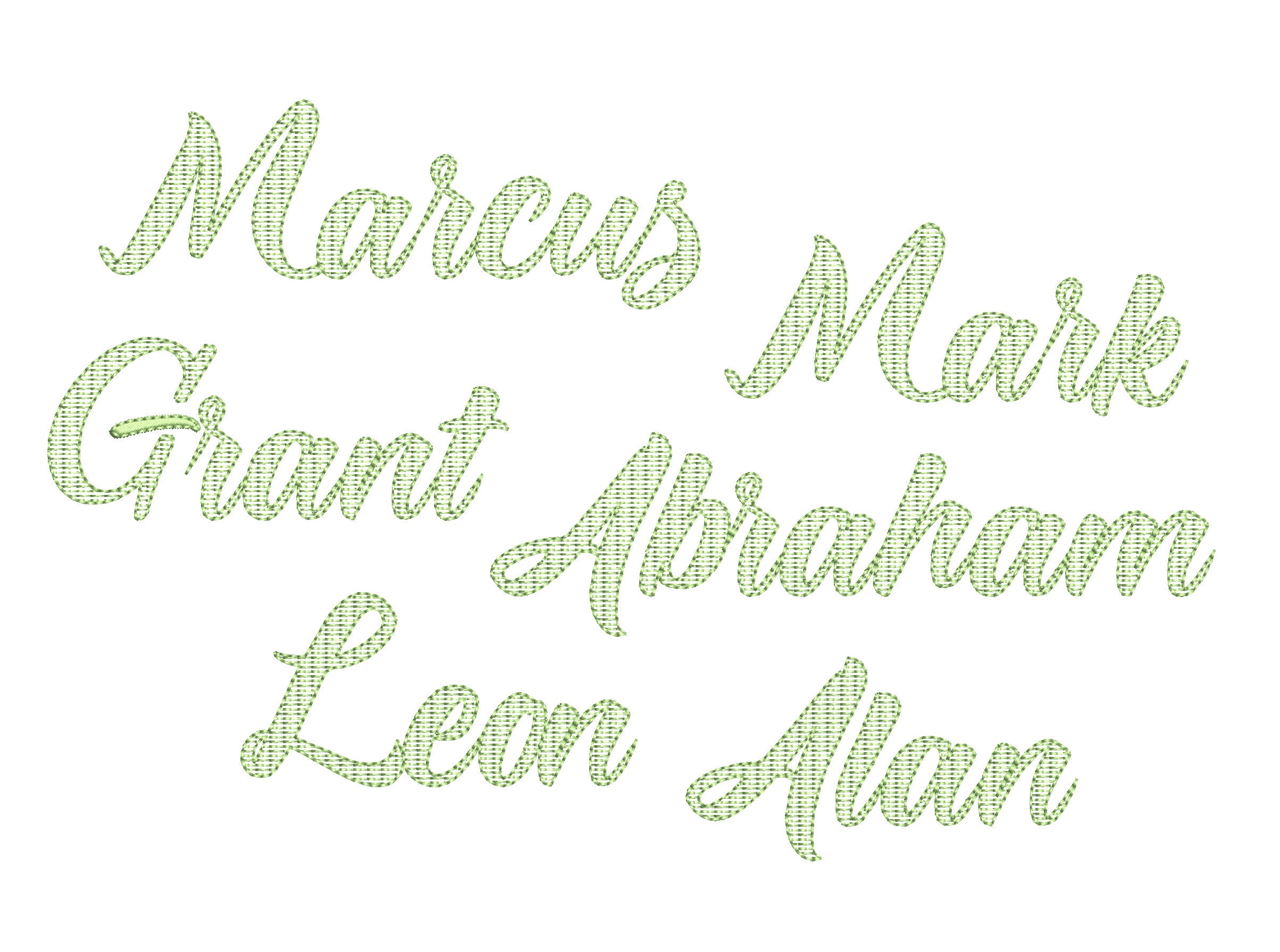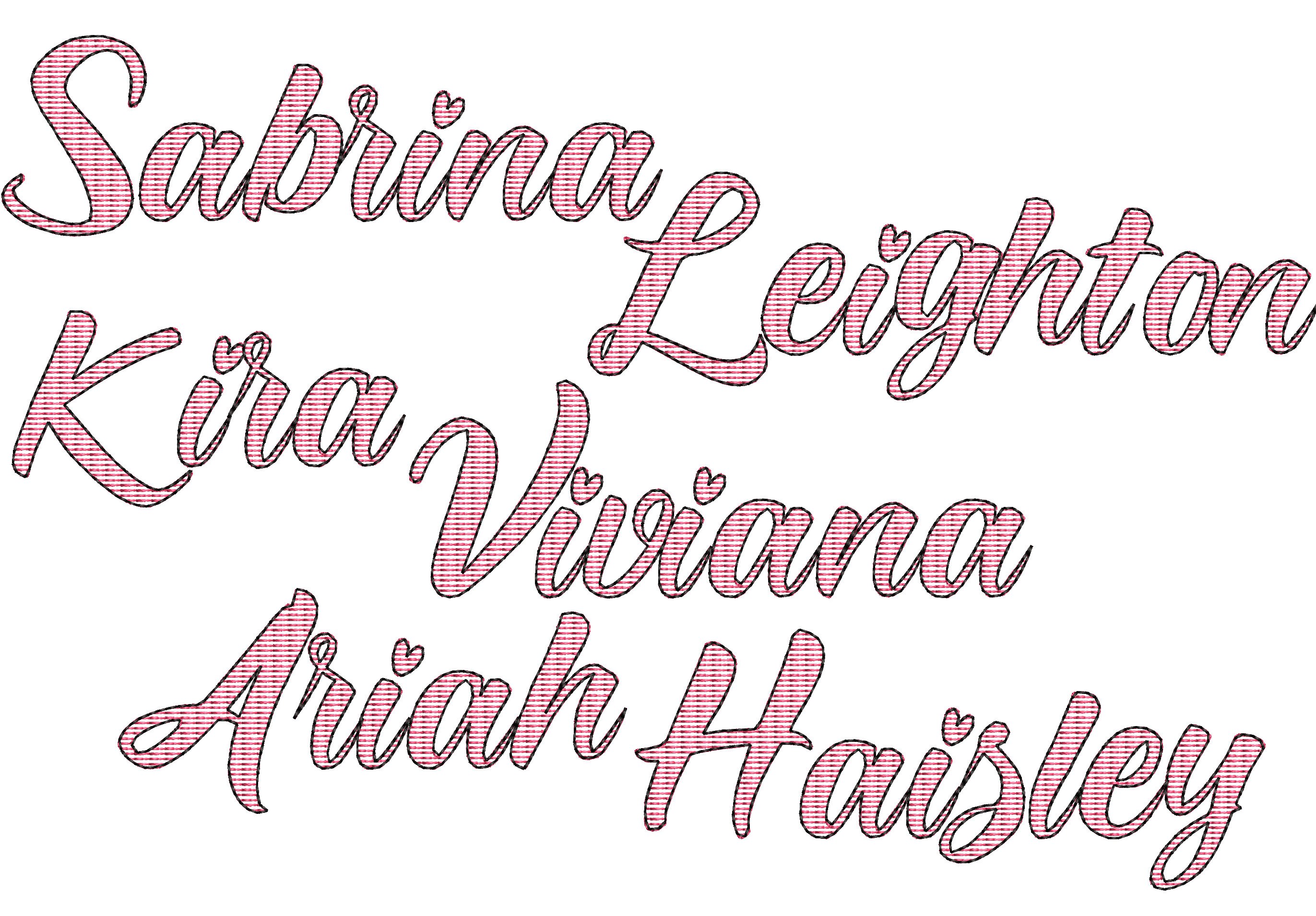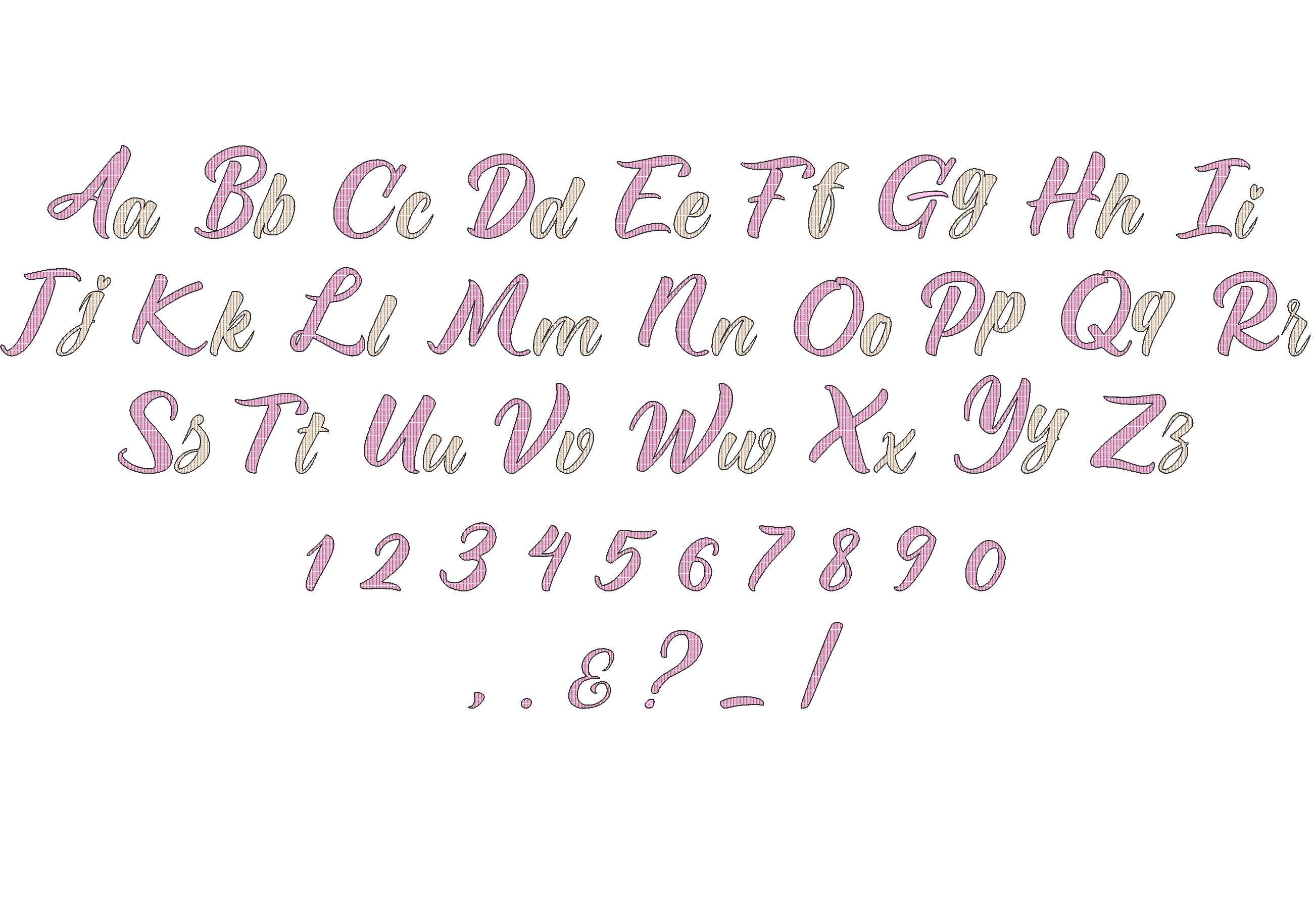
Light stitch or golden metallic thread FONT light sketch outline machine embroidery designs alphabet letters / BX, jef, dst, exp, vip, pes
It looks stunning!
Whole alphabet: uppercase, lowercase, numbers and punctuation.